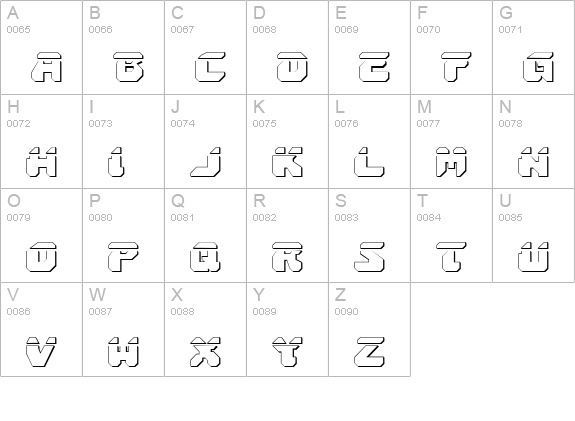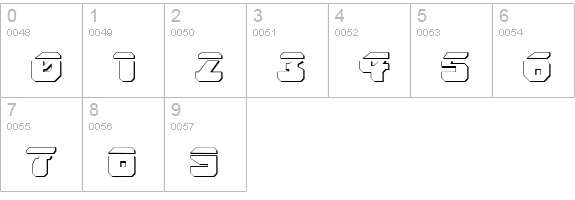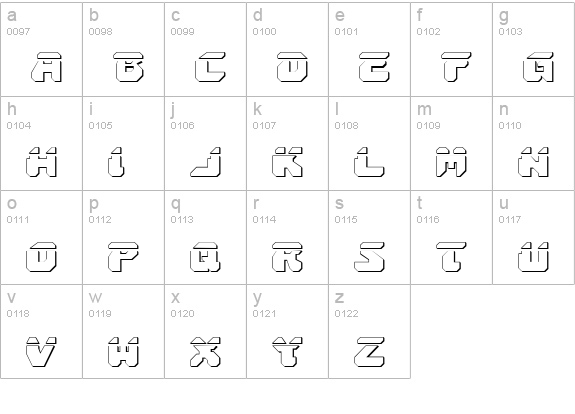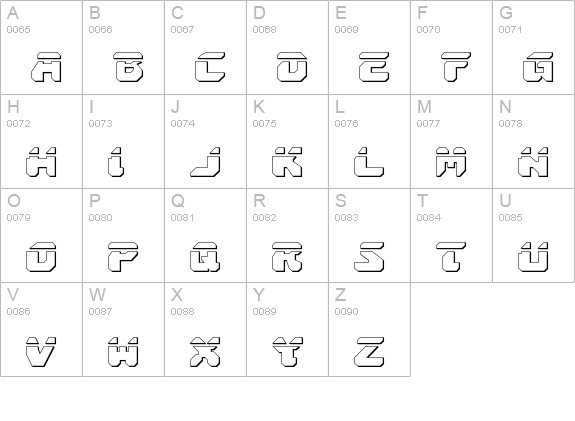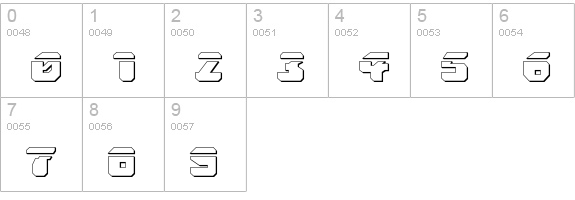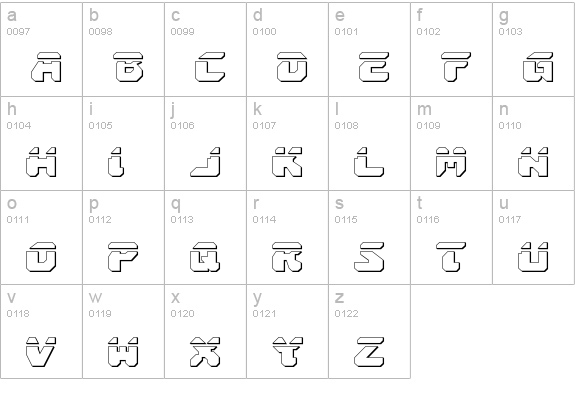
The Astropolis Laser 3D font is a futuristic and eye-catching typeface that is sure to make your designs stand out. Its bold, geometric shapes and sleek lines give it a modern and dynamic look, perfect for projects that require a touch of sophistication and style. The 3D effect adds depth and dimension to each letter, creating a striking visual impact. What makes the Astropolis Laser 3D font even more appealing is that it is available for free download at FontsMarket.com. This means that you can easily access this unique and versatile font to enhance your creative projects without any cost. Whether you're working on a logo, poster, website, or any other design, the Astropolis Laser 3D font is sure to elevate your work to the next level. Download it now and add a touch of futuristic flair to your designs!